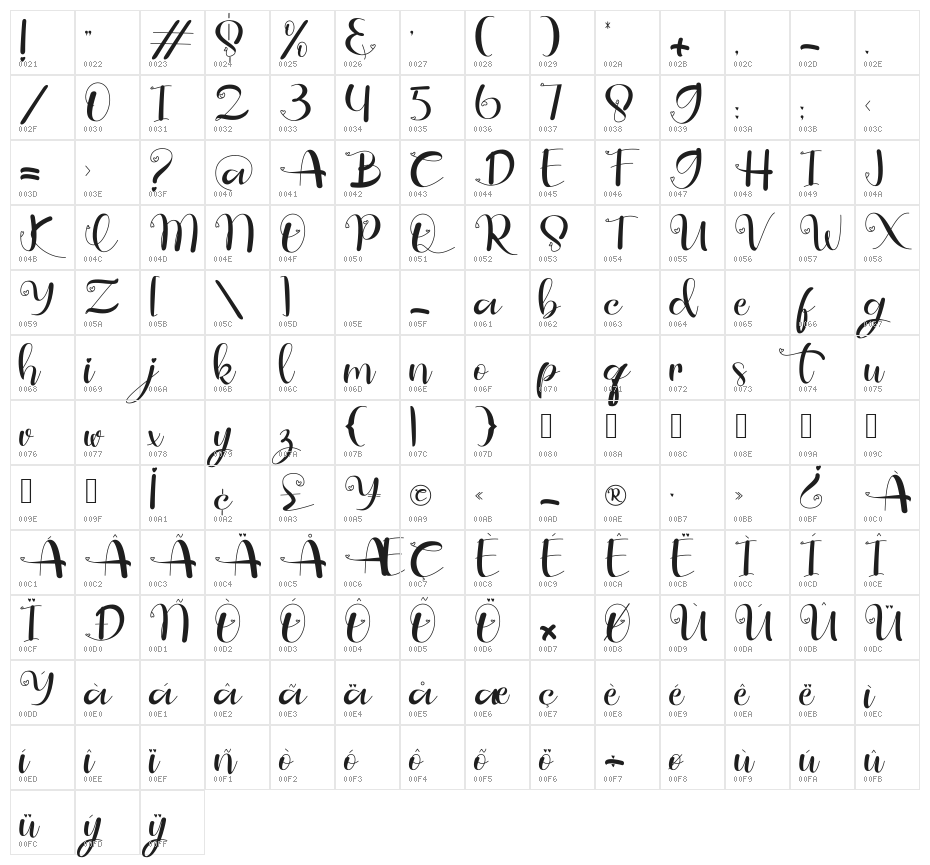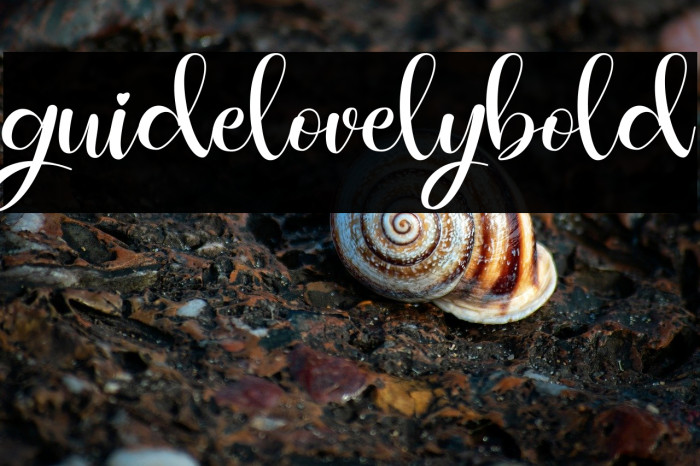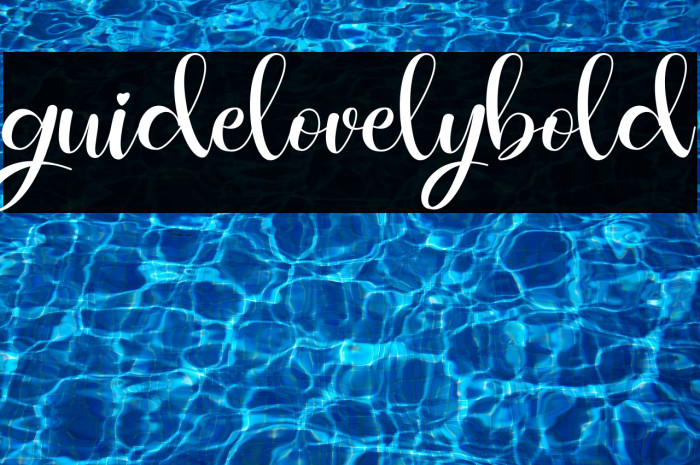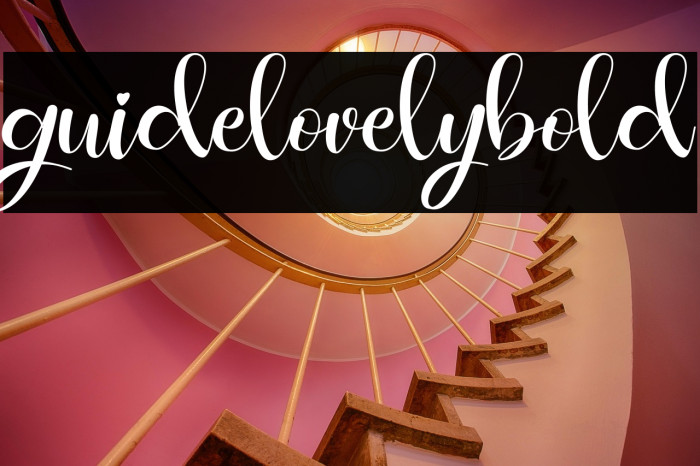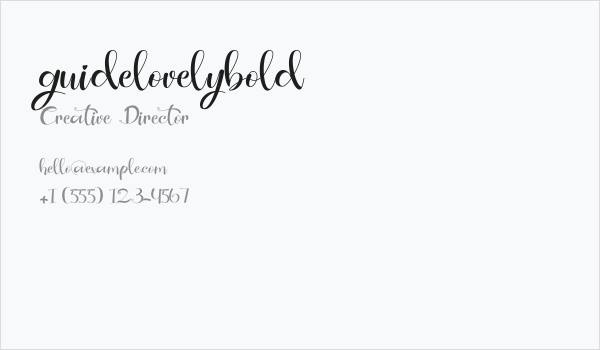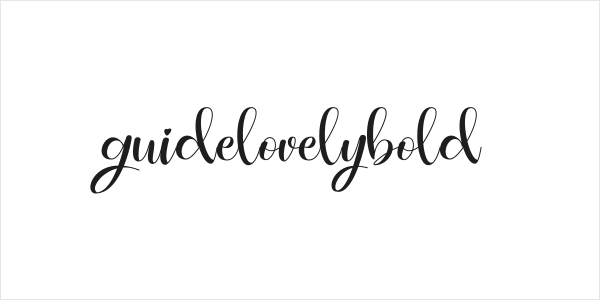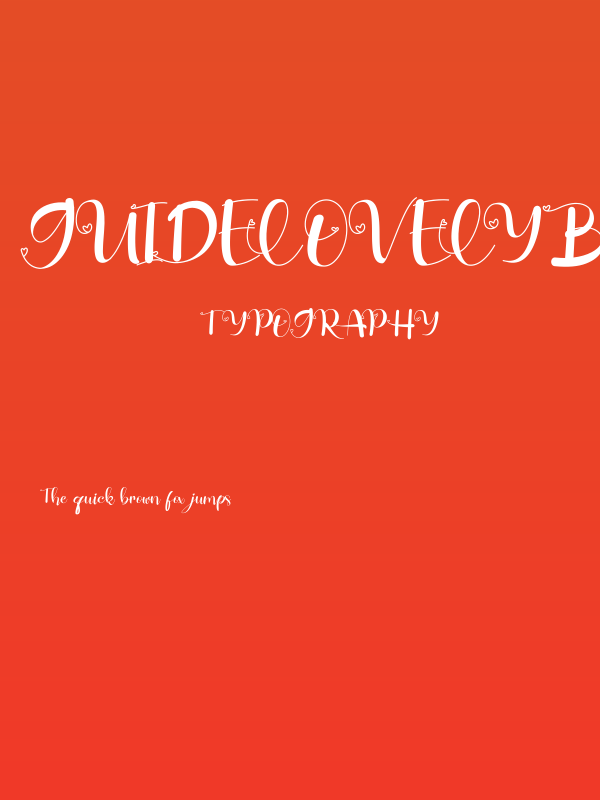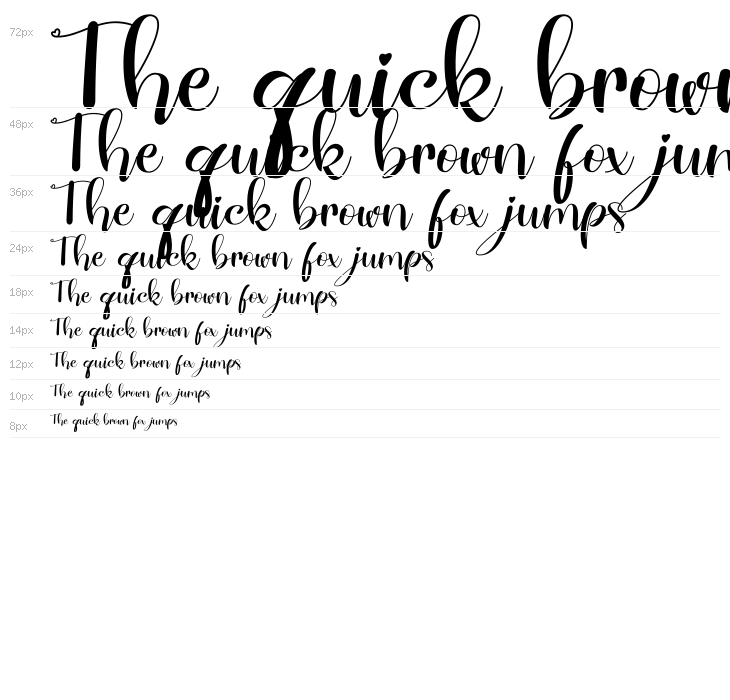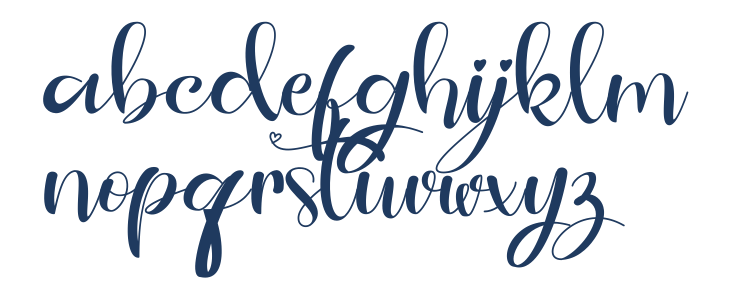
guidelovelybold Font
guidelovelybold Description
This font features an elegant and playful script style with a modern twist. The letters are connected with delicate swirls and loops, giving it a whimsical and romantic feel. Each character is adorned with small heart motifs, adding a touch of charm and uniqueness. The strokes are bold and confident, yet maintain a graceful flow, making it suitable for eye-catching designs. The uppercase letters are particularly ornate, while the lowercase letters maintain a more subtle elegance. The numbers and special characters follow the same decorative style, ensuring consistency throughout the font.